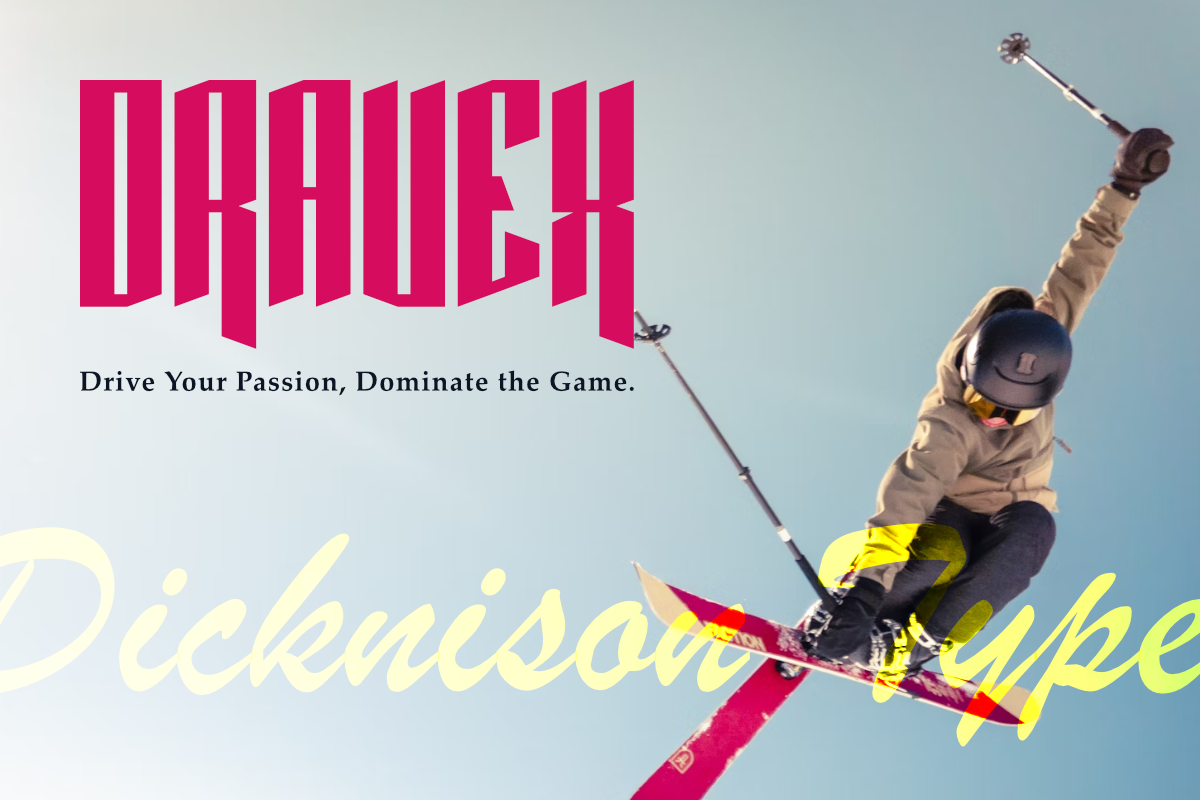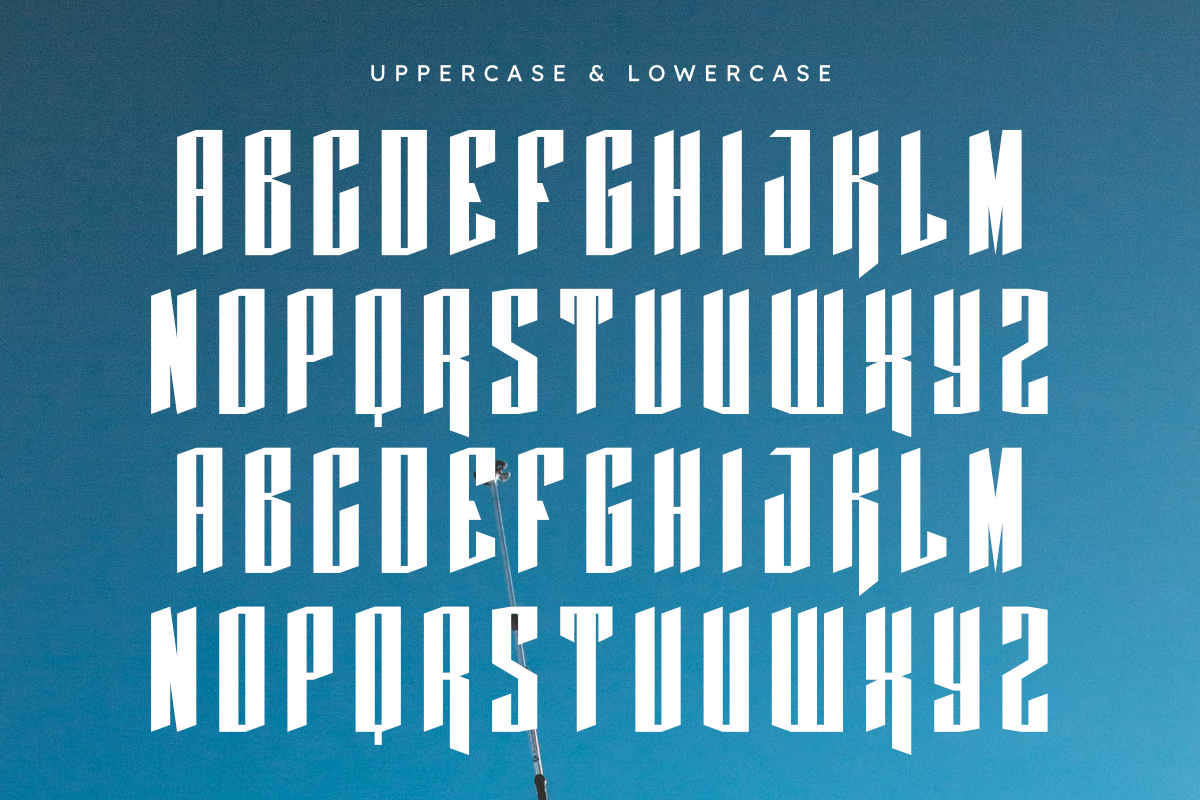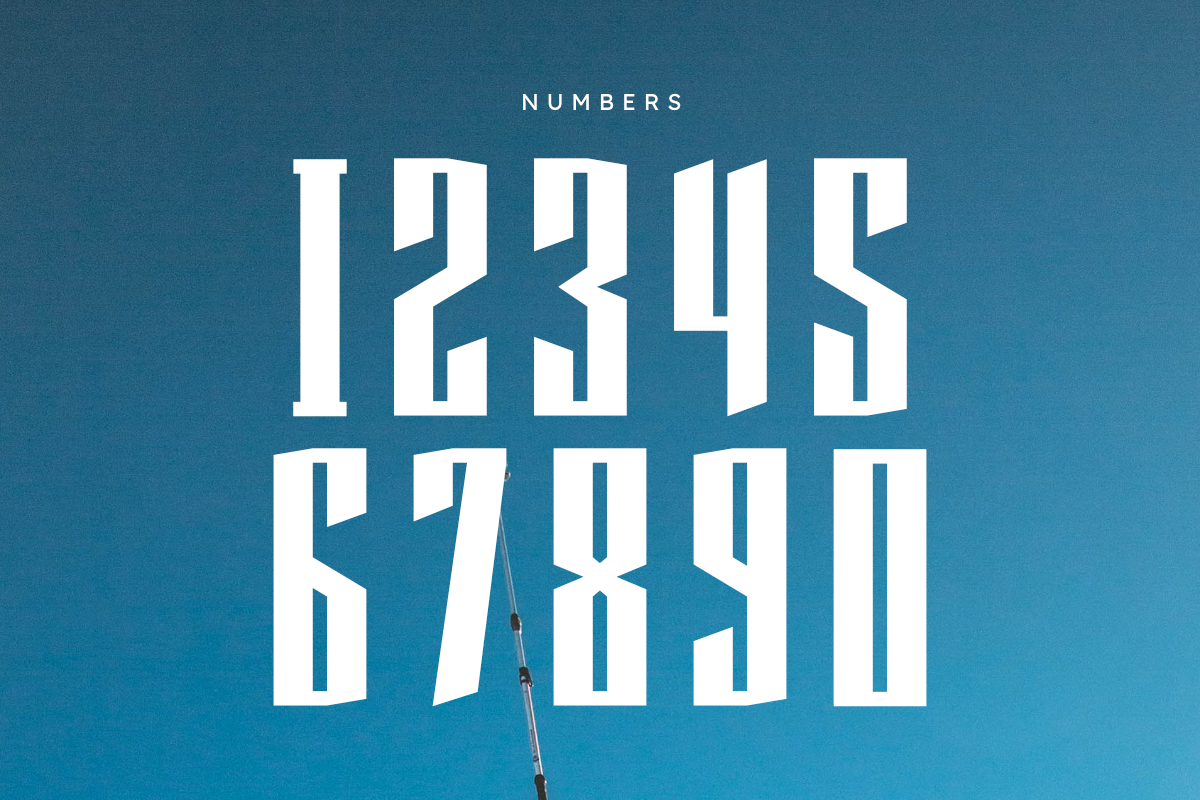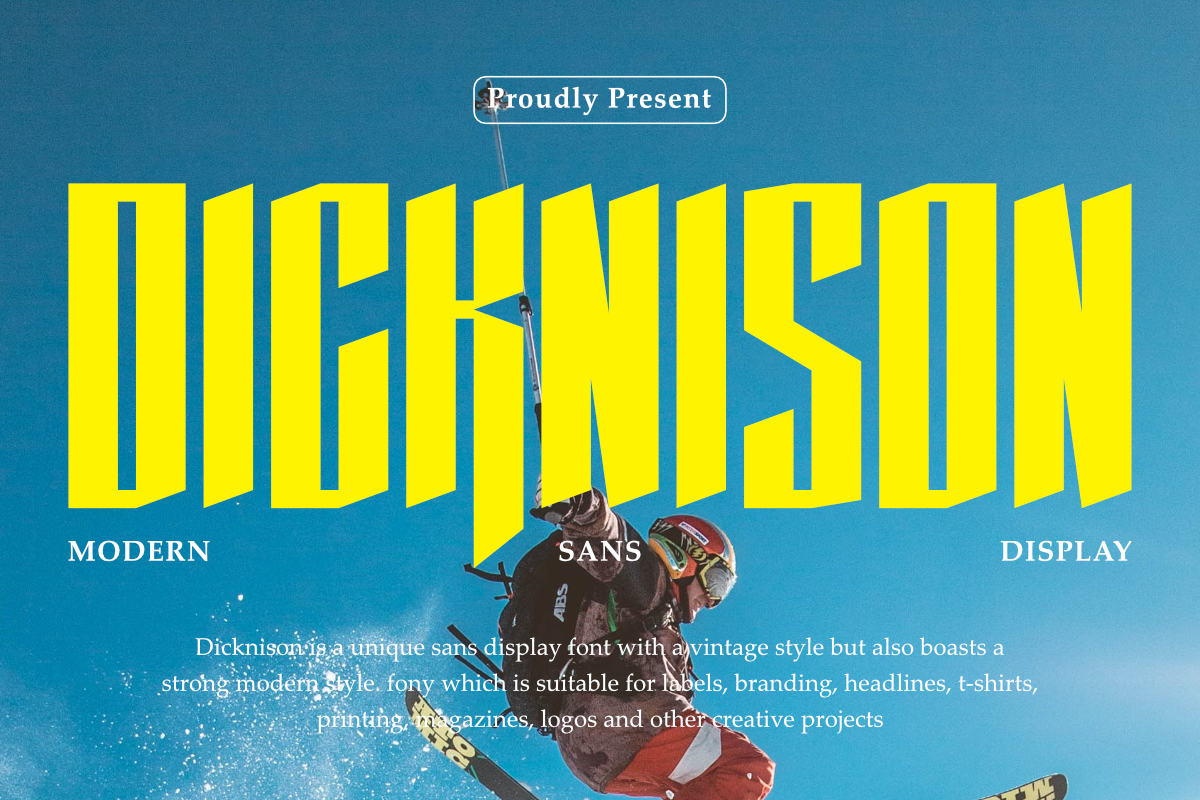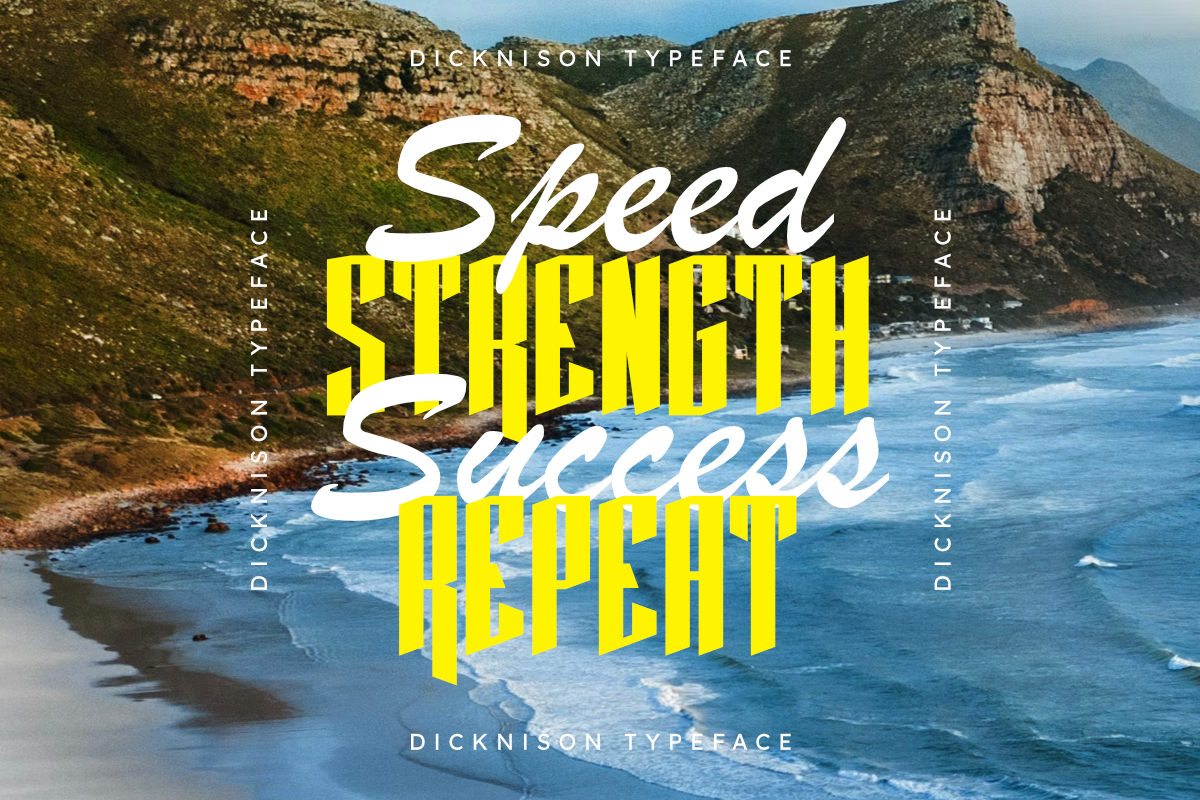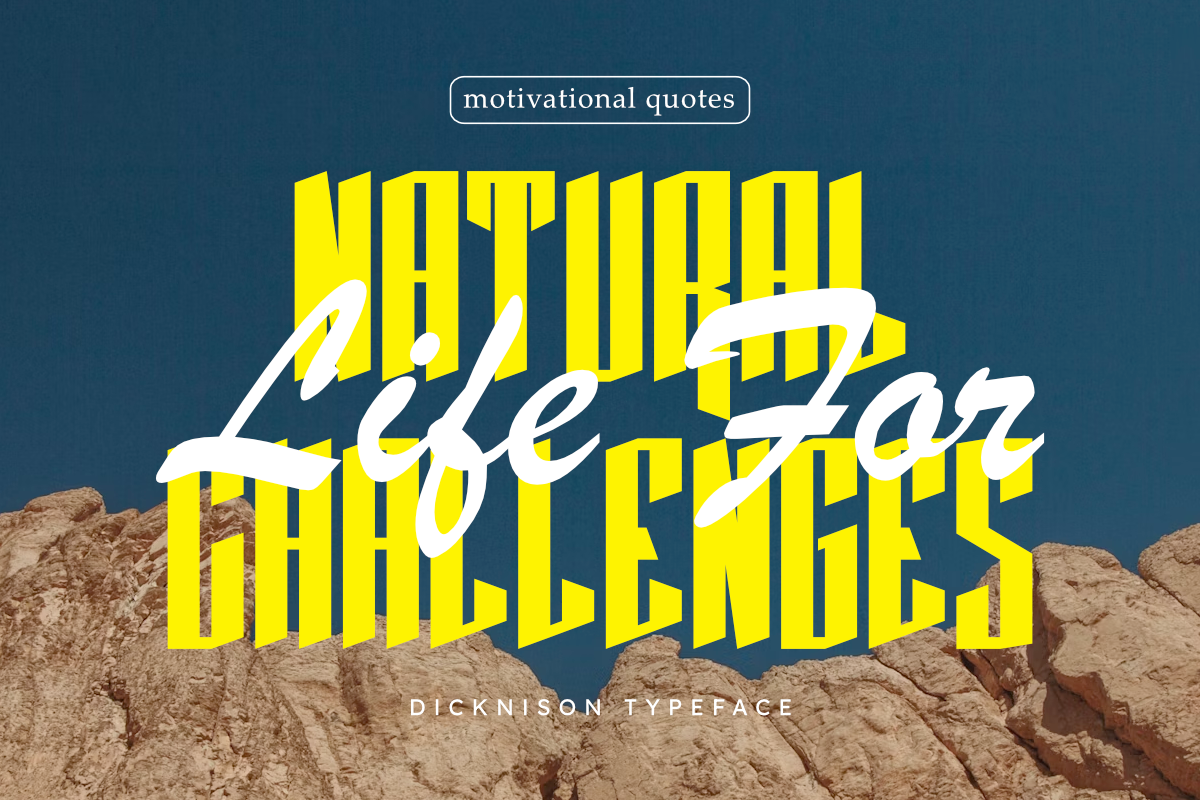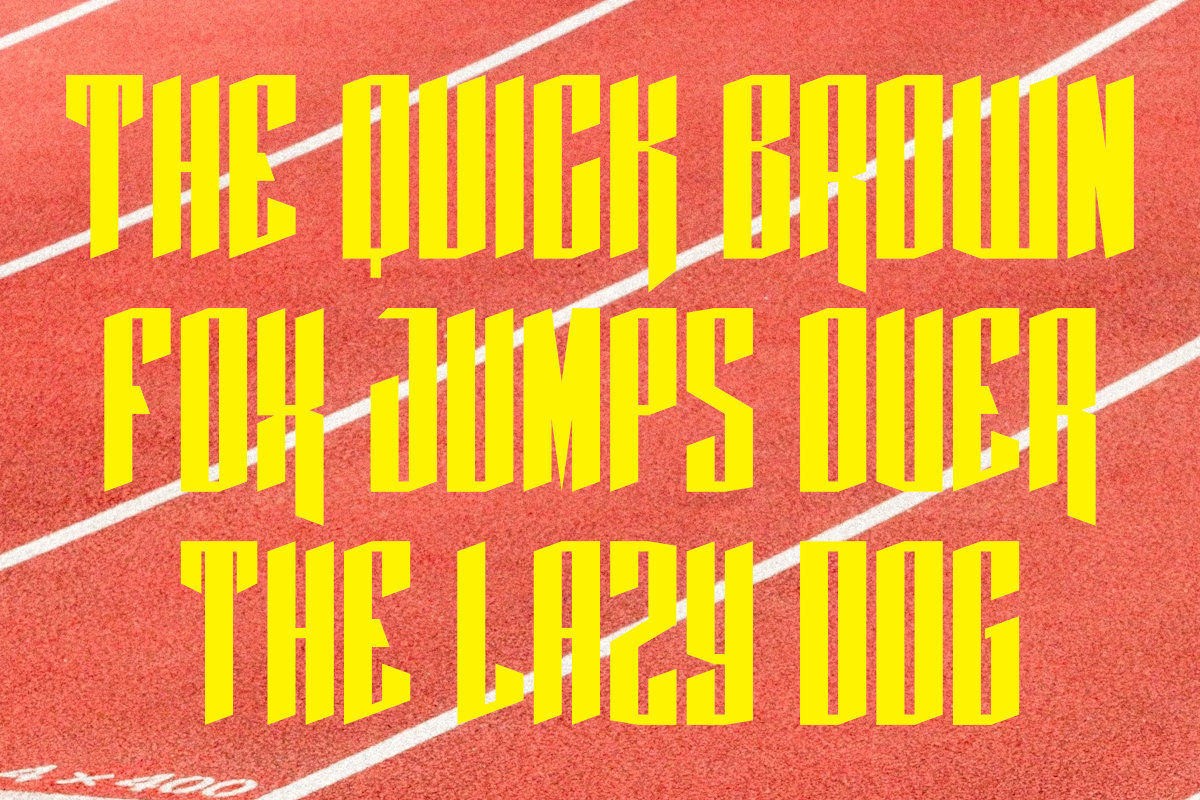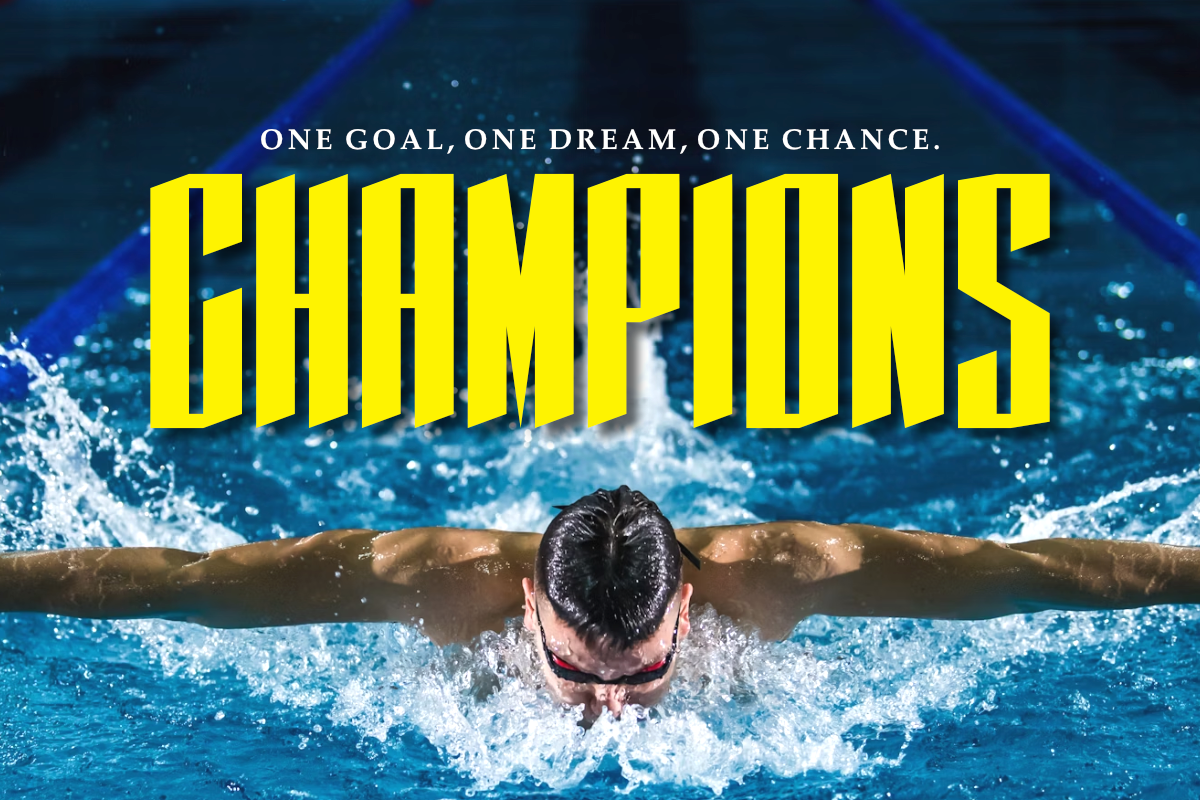
Dicknison – Modern Sans Display Font
Dicknison is a unique sans display font with a bold vintage style while maintaining a strong modern appeal. Its tall and thick letterforms make it perfect for various design needs, including branding, logos, headlines, labels, magazines, t-shirts, and other creative projects.
Enhance your design projects with Dicknison, a font that delivers a strong and professional visual impact!